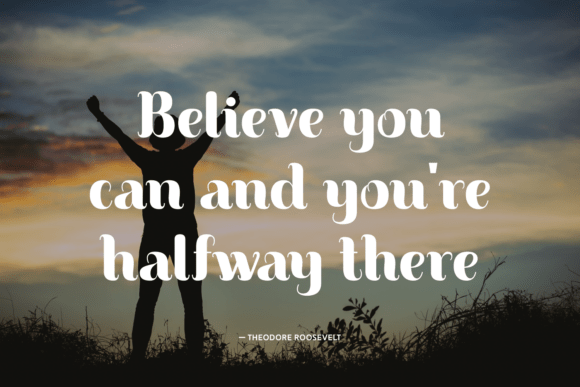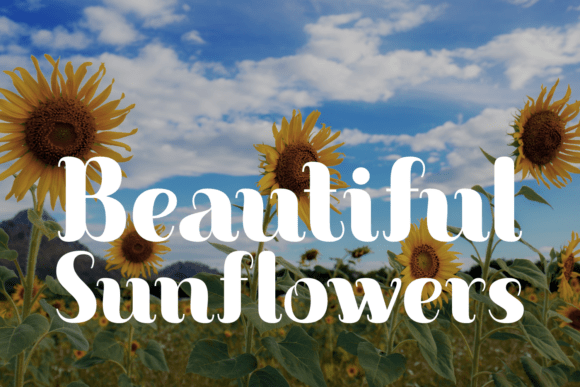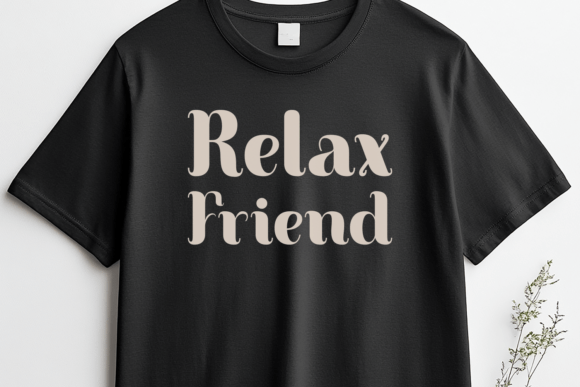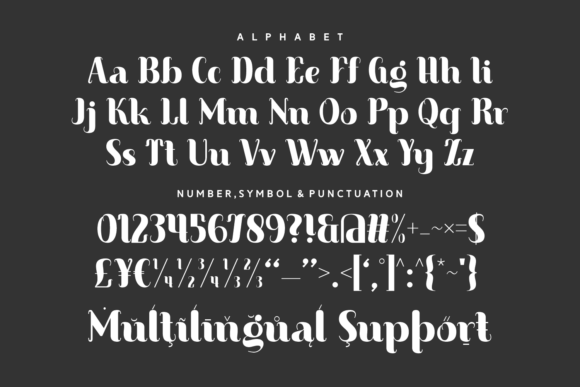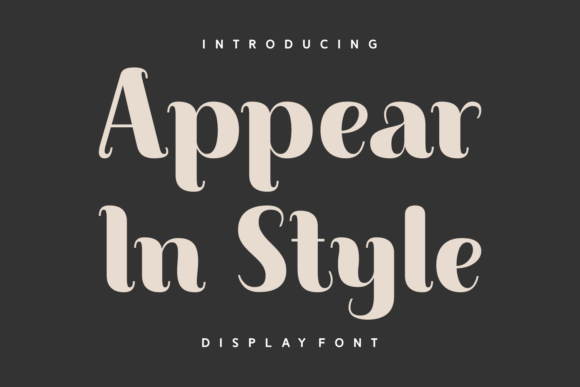
Introducing Appear in Style Font: Elevate Your Designs with Elegance and Versatility
In the world of design, typography plays a crucial role in conveying messages, expressing creativity, and capturing the audience’s attention. For designers and crafters seeking a font that embodies elegance, modernity, and authenticity, we are excited to introduce “Appear in Style.” This stunning display font is designed to make a striking impact across various platforms, from photography to apparel, and is an essential tool for trend-setting projects.
Clean and Smooth Lines for a Lasting Impression
Appear in Style boasts clean and smooth lines that give it a refined and sophisticated look. This font is more than a simple serif; it’s a versatile typeface that functions flawlessly in various branding applications, including book covers, magazines, and packaging. Its effortless sophistication enhances greeting cards, logotypes, and quotes, making it an indispensable asset in your design arsenal.
One of the standout features of Appear in Style is its versatility. This font is designed to excel in multiple contexts, making it an excellent choice for designers who work on diverse projects. Whether you’re creating a brand identity, designing a book cover, or crafting a magazine layout, Appear in Style adapts seamlessly to different styles and themes.
Multilingual Support for Global Appeal
In today’s globalized world, designers need fonts that can support multiple languages. Appear in Style rises to the challenge, offering multilingual support that allows you to transform your work into a global masterpiece. With this font, you can create designs that transcend geographical boundaries and resonate with diverse audiences.
Applications of Appear in Style
So, where can you use Appear in Style? The possibilities are endless:
- Branding: Create a lasting impression with your brand’s logotype, using Appear in Style to convey elegance and sophistication.
- Book Covers: Make your book cover stand out with a font that exudes modernity and refinement.
- Magazines: Use Appear in Style to add a touch of elegance to your magazine layouts and headers.
- Packaging: Elevate your packaging designs with a font that embodies luxury and sophistication.
- Greeting Cards: Create beautiful greeting cards that make a lasting impression with Appear in Style.
Why Choose Appear in Style?
With so many fonts available, why choose Appear in Style? Here are a few compelling reasons:
- Elegance: Appear in Style embodies elegance and sophistication, making it perfect for designs that require a touch of refinement.
- Versatility: This font is designed to excel in multiple contexts, making it an excellent choice for designers who work on diverse projects.
- Multilingual Support: With Appear in Style, you can create designs that transcend geographical boundaries and resonate with diverse audiences.
- Modernity: This font is designed to make a striking impact in the modern design landscape.
In conclusion, Appear in Style is a game-changing font that offers designers and crafters a versatile and elegant solution for their typography needs. With its clean and smooth lines, multilingual support, and effortless sophistication, this font is poised to elevate your designs to new heights. Whether you’re working on branding, book covers, magazines, or packaging, Appear in Style is an essential tool that will help you create stunning designs that leave a lasting impression.